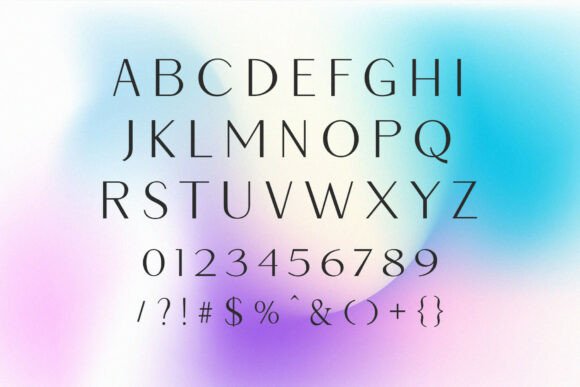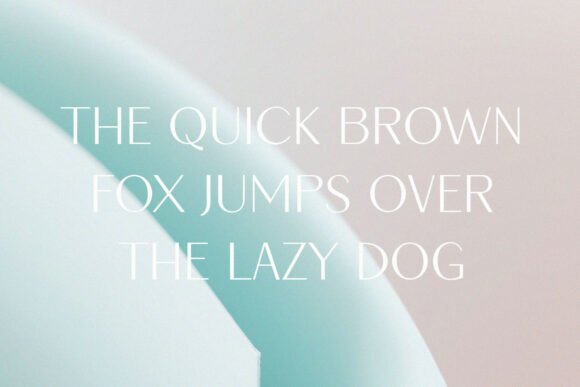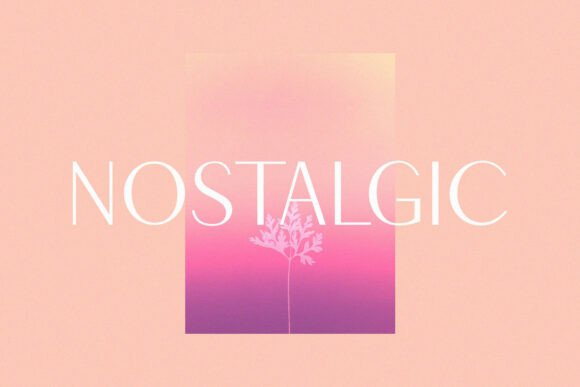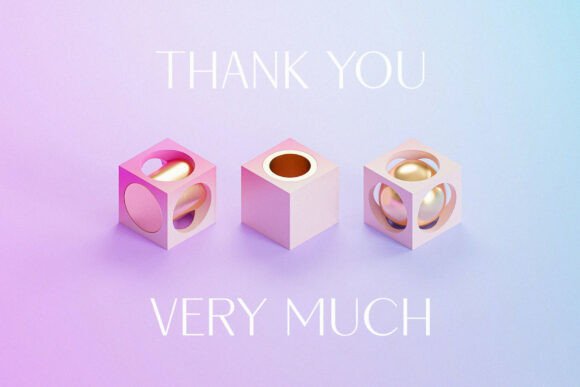
Cromaq Font: Elevate Your Designs with Luxury and Sophistication
In the world of typography, fonts play a crucial role in conveying the tone and personality of a brand. For designers and crafters seeking to create high-end branding projects, a font that exudes luxury and sophistication is essential. This is where Cromaq Font comes into play – a stunning sans serif font that embodies refinement, elegance, and modernity.
What is Cromaq Font?
CROMAQ is a luxurious and contemporary sans serif font, carefully crafted to meet the demands of fashion, beauty, and high-end branding projects. Its sleek and refined design makes it an ideal choice for designers seeking to add a touch of sophistication to their work. The font’s thin lines, stylish curves, and minimal forms create a perfect balance of elegance and simplicity.
Key Features of Cromaq Font
- Thin Lines: Cromaq Font boasts thin lines that add a level of refinement and luxury to any design. These delicate lines create a sense of sophistication, making it perfect for high-end branding projects.
- Stylish Curves: The font’s stylish curves add a touch of elegance and fluidity, creating a beautiful visual flow. These curves enhance the overall aesthetic of the font, making it suitable for fashion and beauty brands.
- Minimal Forms: Cromaq Font’s minimal forms ensure that the design remains clean and uncluttered. This simplicity allows the font to adapt seamlessly to various design contexts, from logos and titles to body text.
Why Choose Cromaq Font?
Cromaq Font offers several benefits that make it an attractive choice for designers and crafters:
- Versatility: The font’s versatility allows it to be used in a wide range of design projects, from fashion and beauty to high-end branding and advertising.
- Elegance: Cromaq Font adds a touch of elegance and sophistication to any design, elevating the overall aesthetic and creating a lasting impression.
- Modernity: The font’s modern design ensures that it remains fresh and relevant, even in today’s fast-paced design landscape.
How to Use Cromaq Font in Your Designs
To make the most of Cromaq Font, consider the following design tips:
- Pair with contrasting fonts: Combine Cromaq Font with contrasting fonts to create visual interest and hierarchy.
- Experiment with colors: Try pairing the font with bold colors to add depth and contrast to your design.
- Play with spacing: Adjust the spacing between letters and lines to create a unique visual flow.
Cromaq Font in the Design Industry
Cromaq Font has been gaining popularity in the design industry, particularly among fashion and beauty brands. Its luxurious and sophisticated design makes it an ideal choice for high-end branding projects, such as:
- Logos and branding: Cromaq Font is perfect for creating elegant and sophisticated logos that reflect a brand’s high-end personality.
- Advertising and marketing: The font’s modern design and versatility make it suitable for advertising and marketing campaigns, particularly in the fashion and beauty industries.
- Packaging and product design: Cromaq Font can be used to create stunning packaging and product designs that exude luxury and sophistication.
Cromaq Font is a luxurious and contemporary sans serif font that offers a refined personality, making it perfect for fashion, beauty, and high-end branding projects. Its thin lines, stylish curves, and minimal forms create a beautiful balance of elegance and simplicity. With its versatility, elegance, and modernity, Cromaq Font is an excellent choice for designers and crafters seeking to elevate their designs and add a touch of sophistication.